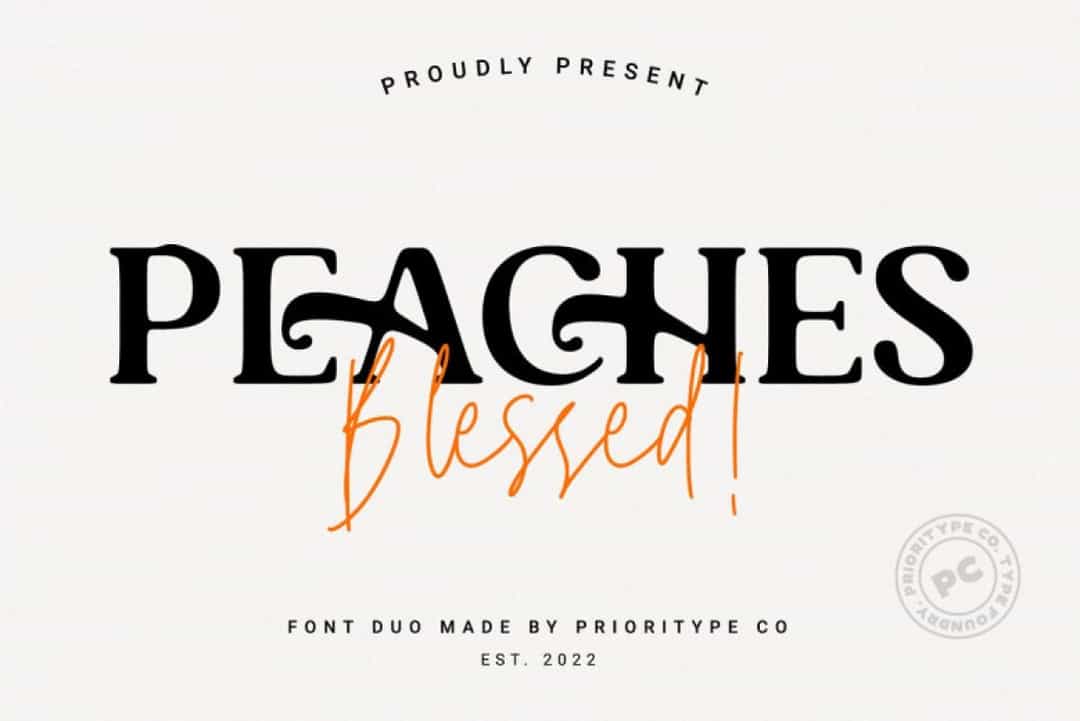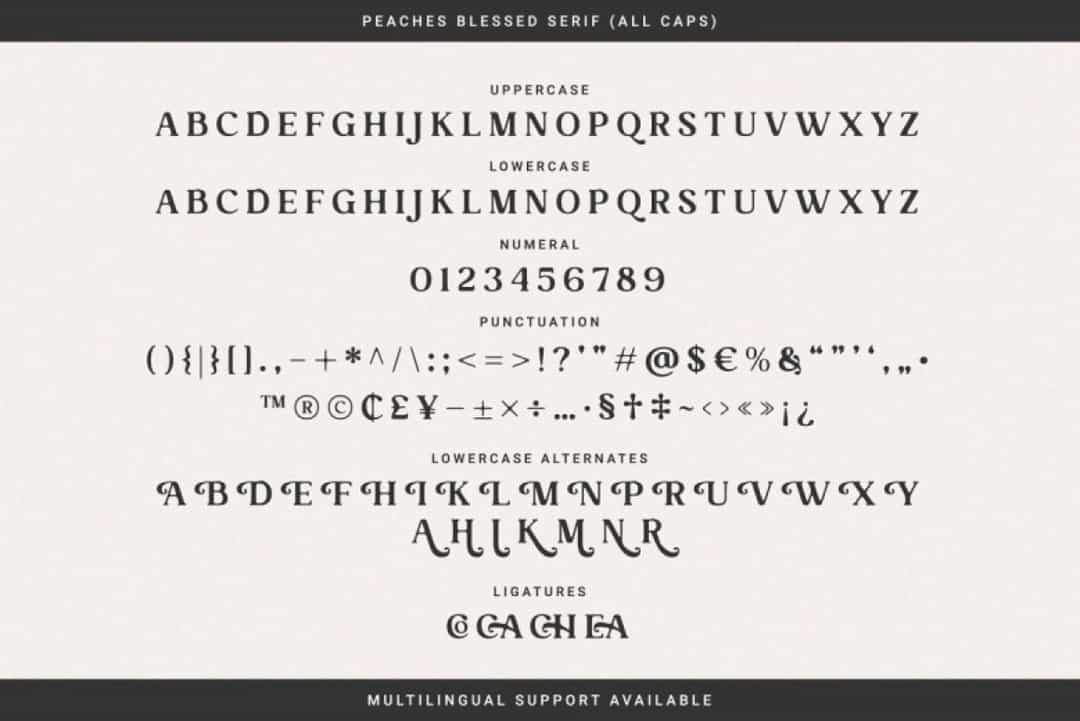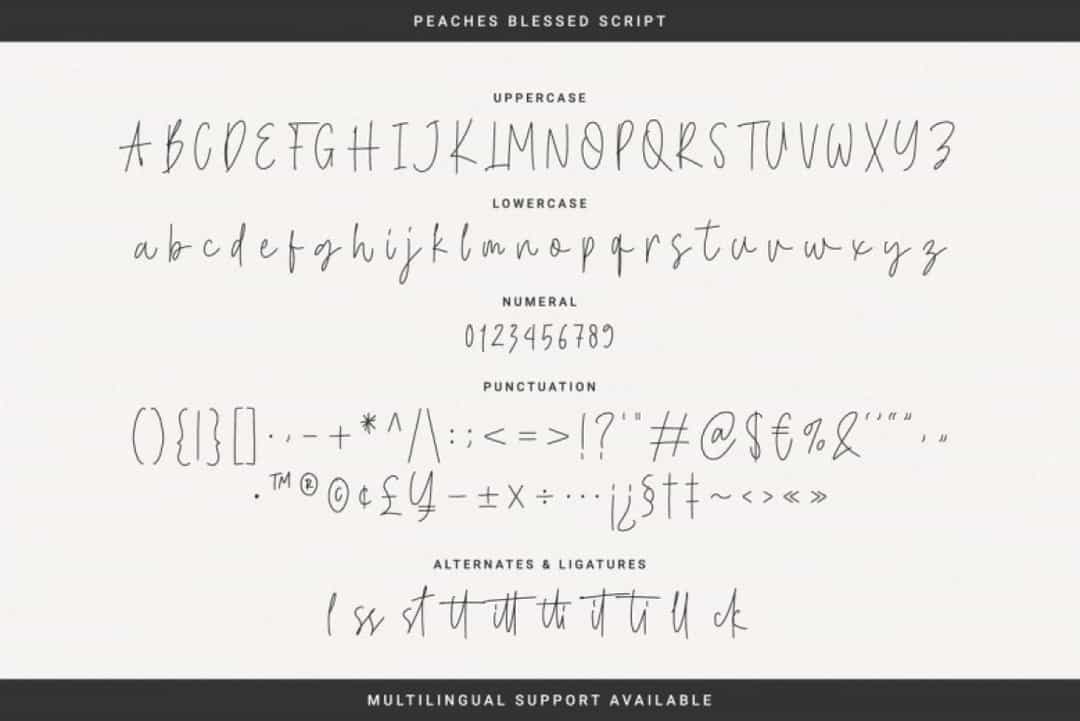
Peaches Blessed is an engaging combination of fonts, as it features organic shapes. Plus, characters within both fonts add visual intrigue – perfect for logos, branding wedding invites, quotes and much more!